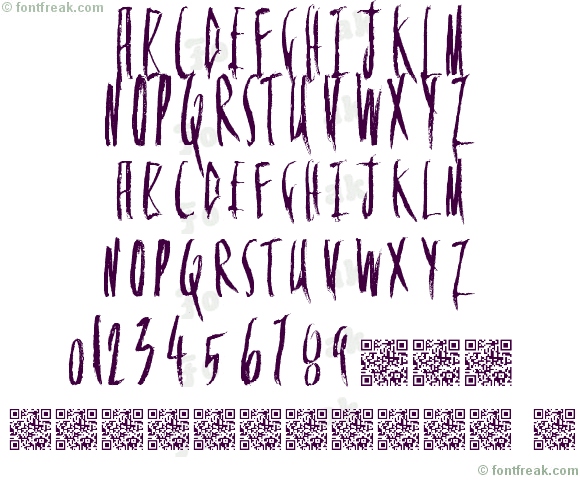
FloweryDeath
About FloweryDeath
FloweryDeath, crafted by XEROGRAPHER FONTS in 2015, is a unique display font that captures a captivating blend of whimsy and darkness. This font features an organic, hand-drawn style that offers a striking visual appeal, characterized by irregular stroke weights and a playful yet eerie aesthetic. The letters exhibit a varied contrast, with thicker strokes juxtaposed against delicate, almost fragile outlines, creating a sense of movement and flow. The spacing between characters is intentionally loose, enhancing the font's decorative quality and making it suitable for attention-grabbing designs.
Ideal for creative projects that require a touch of personality, the FloweryDeath font excels in several specific applications. It is perfect for wedding invitations, where its unique charm can convey a sense of romance with an unconventional twist. This font can also be used effectively in movie posters, particularly for genres that lean toward the surreal or gothic, helping to establish an evocative atmosphere. Additionally, it works well for restaurant menus that aim to attract a younger, eclectic clientele, adding a sense of artistry to the dining experience. Graphic designers and content creators will find this font particularly appealing for branding projects that seek to make a memorable impression.